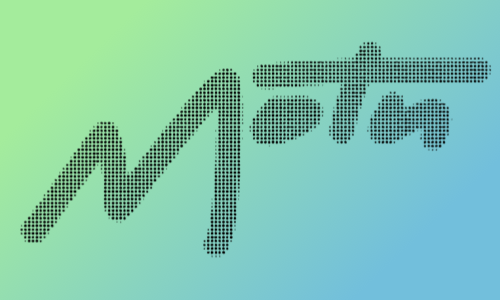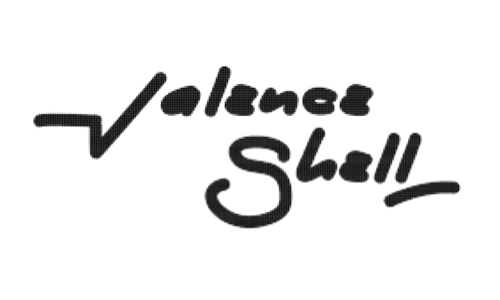
BTW my MIDI patchbay's brand is MOTU, I actually never thought the word had any meaning but now it makes perfect sense!
@TH3_C0N-MAN - Once again, an excellent use of your FONTSTRUXIUS program to make 'handwriting'-/'brush'-type fonts. Congratulations on the achievement!
Well, yeah. But I don’t think that an American company would use a Māori word. It probably means something else to them.
I drew them all together in a vector editor and then just duplicated the output and cropped for each letter. I could then pass them through Fontstruxius one at a time.
I think that I’ll make a video about Fontstruxius at some point. Maybe a tutorial sort of thing.
Just thought I’d say that I did make a video about it:
what about the numbers?
Love the unique V and W by the way.
• Fonts made with Fontstruxius don’t work as ttf files, because they use hidden features of Fontstruct that aren’t expected to be used. So the fonts made with this tool were just gimmicks to view purely on Fonstruct itself.
@Th3_C0n-Man It trims off the decimals for individual brick scaling (sx and sy) from experience (clipboard manipulation for now, but having it added it as a feature would expand the range of possible slopes)
@AidenFont - @TH3_C0N-MAN is correct; while his programming skills resulted in wonderful images created within FontStruct (by using all of the bricks to form dithered patterns), the resulting TTF only used the single square bricks present in those dither patterns. For example, here is a test pic of my old SUV created in FontStruct and the resulting TTF...
@AidenFont - Here is another example:
@AidenFont - Here is another example. Excellent dithering, bad TTF results.